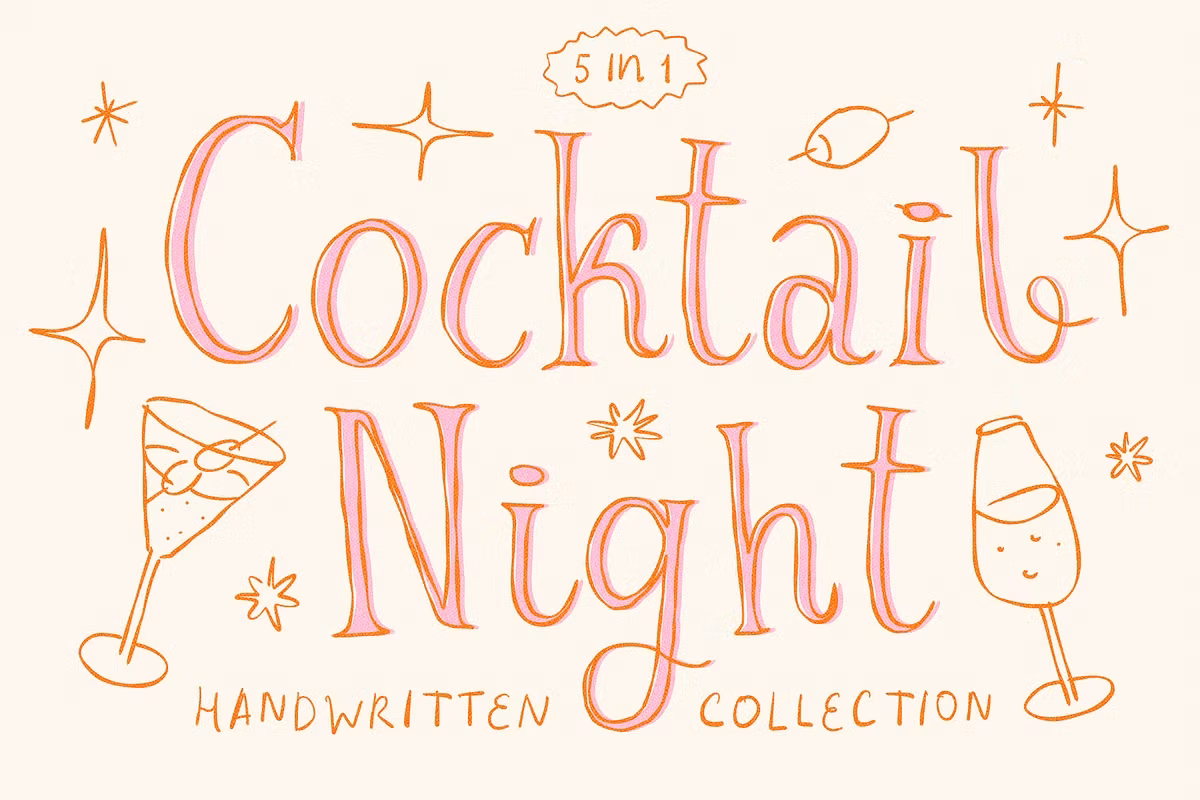
Cocktail Night Festive Font Family Free Download
Please note, you must purchase this font for commercial use. However, you can easily download Cocktail Night Festive Font Family Free Download for personal use and testing purposes. Cocktail Night Festive Font Family is a playful and festive font collection designed to add energy and excitement to any design project. Perfect for party invitations, event promotions, social media graphics, and branding, this font family brings a fun, vibrant vibe to your typography. Whether you're designing for a New Year's Eve party, a cocktail bar, or a celebratory event, Cocktail Night Festive Font Family Free Download offers a unique, modern touch. With multiple styles and weights, this font family provides flexibility and creativity for all your design needs. Download Cocktail Night Festive Font Family Free Download today and explore its potential before opting for a commercial license.